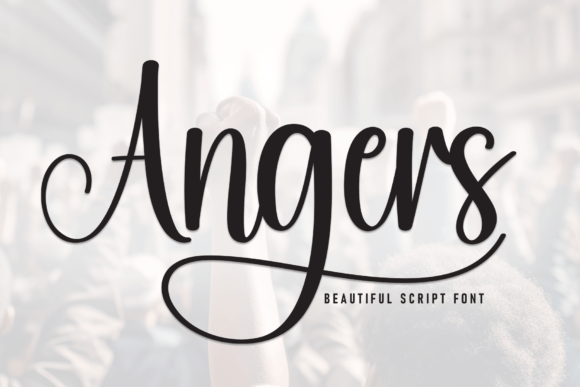
The Angers Font: A Designer’s New Best Friend
I’ll never forget the design project that led me to discover the Angers font. I was working on a branding project for a new coffee shop, and I was struggling to find the perfect font. The client wanted something clean, friendly, and approachable, but also unique and eye-catching. After hours of searching, I stumbled upon Angers, and it quickly became my go-to font for the project. In fact, it’s been my top choice for many projects since then!
An Honest Review of Angers Font
What I Love About Angers ✨
- ✅ Clean and simple design that’s easy on the eyes
- ✅ Friendly and approachable feel that’s perfect for a wide range of designs
- ✅ Highly versatile and can be used for both digital and print projects
- ✅ Supports OpenType features, glyphs, and stylistic alternates
While Angers is an amazing font, it’s not perfect. Here are a few things to keep in mind:
- ⚠️ Some users have reported issues with kerning on certain letters
- ⚠️ Limited availability of extended language support
The Story Behind Angers Font
Angers font was designed with the goal of creating a clean, relaxed, and friendly handwritten font that’s suitable for a wide range of designs. The designer aimed to create a font that’s both approachable and elegant, making it perfect for designers, crafters, and creative hobbyists.
Q: What type of designs is Angers best suited for?
Angers is a versatile font that can be used for a wide range of designs, including branding, packaging, posters, and digital graphics.
Q: Does Angers support OpenType features?
Yes, Angers supports OpenType features, glyphs, and stylistic alternates, making it a great choice for designers who want to add extra flair to their text.
Q: Is Angers available in multiple languages?
Angers currently supports a limited range of languages, but the designer may release additional language support in the future.